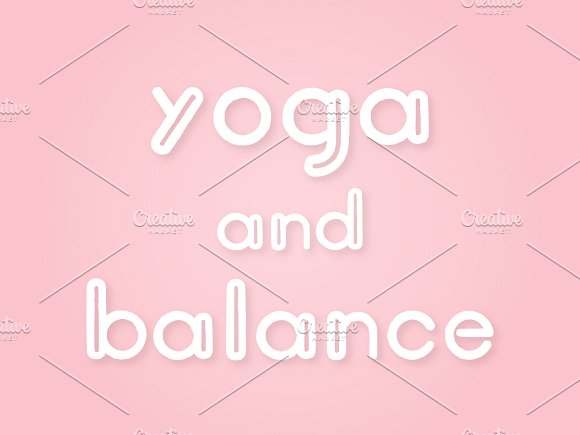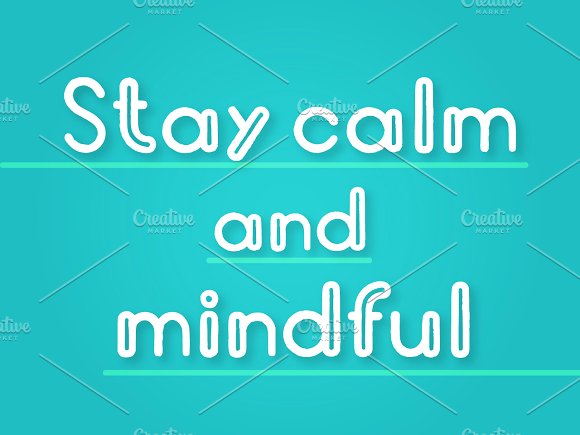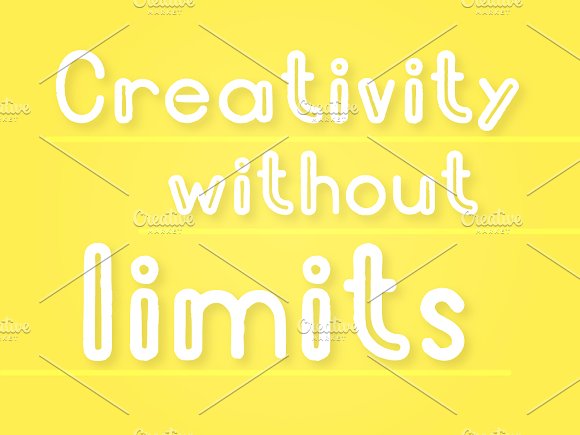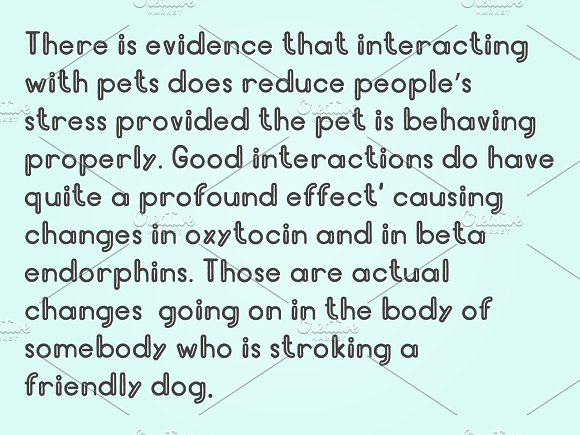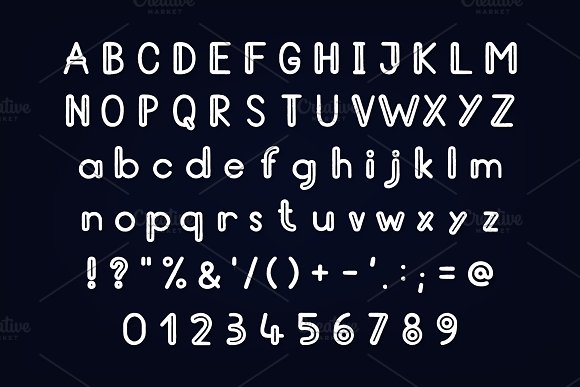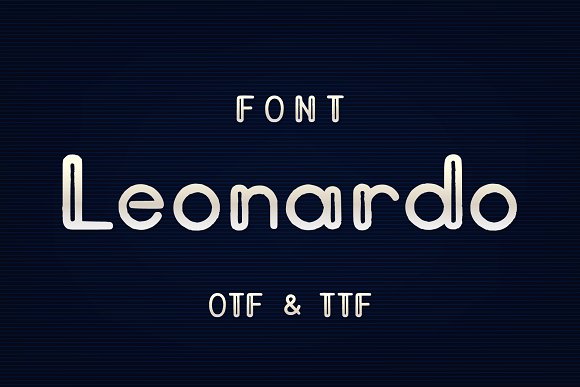
Leonardo font
This is modern stylish font Leonardo for those who like to do modern graphics. logos, prints, posters, cards, or are looking for some fresh and trendy font for their project.